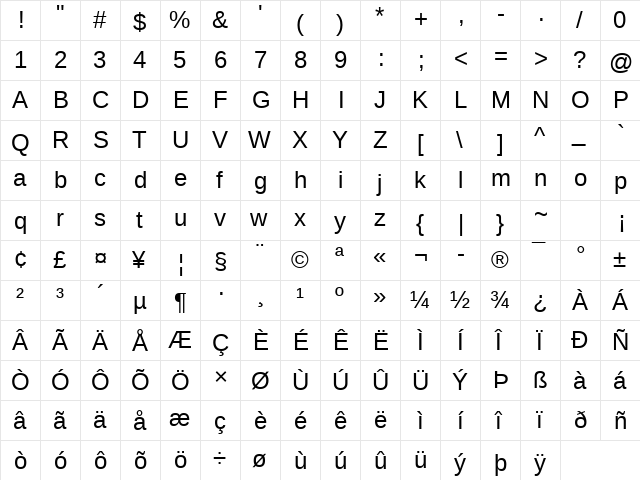
Ascender Sans Regular
| Foundry | Ascender Corporation |
| Designer | Steve Matteson |
Design Context for Ascender Sans Typeface
Ascender Sans offers clean, dependable letterforms without strong stylistic allegiance, making it a practical choice for designers who need flexibility.
Pro Tip: Pair Ascender Sans with a font of contrasting weight or personality to build a more expressive typographic hierarchy.